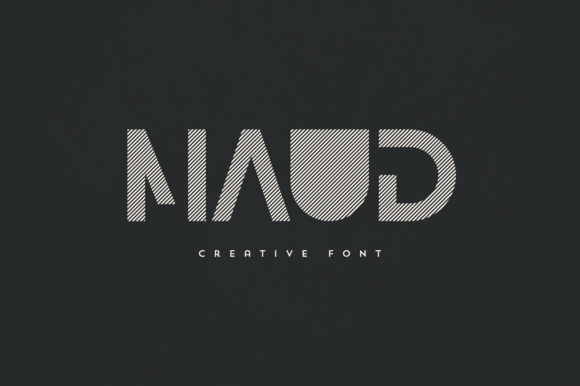
Maud: A Timeless Font for Modern Design
In a world where visual identity plays a crucial role in communication, the right typography can make all the difference. Maud is an elegant and versatile display font that brings a touch of sophistication to any design project. Whether you're crafting a logo, designing a brand, or adding a headline to a magazine, Maud offers a unique aesthetic that stands out without overwhelming the viewer.
As digital and print media continue to evolve, the demand for distinctive fonts has grown. Maud meets this need by combining classic elegance with modern adaptability. Its clean lines and refined structure make it suitable for a wide range of applications, from high-end branding to everyday text overlays.
The Rise of Display Fonts in Contemporary Design
Display fonts have become increasingly popular in recent years, especially in branding and marketing. Unlike standard typefaces, display fonts are designed to grab attention and convey personality. Maud fits perfectly into this category, offering a balance between readability and visual appeal.
With the rise of social media and digital content creation, designers are constantly seeking fonts that can translate well across different platforms. Maud’s versatility ensures it looks great on both screens and printed materials, making it a valuable asset for creators who work in multiple formats.
Why Maud Stands Out
Maud is more than just a pretty font—it's a tool that enhances the overall impact of a design. Its subtle variations in weight and spacing allow for creative flexibility, enabling users to experiment with layout and composition. This makes it ideal for projects that require a personal touch or a unique visual signature.
For businesses, Maud can help establish a strong brand presence. In a competitive market, standing out visually is essential. By using Maud in logos, packaging, or promotional materials, companies can create a cohesive and memorable identity that resonates with their audience.
Applications Across Industries
The practical uses of Maud extend beyond traditional design fields. In home décor, for example, it can be used to add a stylish element to wall art, signage, or custom furniture. For product packaging, Maud’s clarity and refinement make it perfect for labels, tags, and branding elements that need to communicate quality and care.
Magazine headers and editorial layouts also benefit from Maud’s ability to command attention while maintaining legibility. In a fast-paced reading environment, a well-chosen font can guide the reader’s eye and enhance the overall experience.
Integrating Maud into Your Workflow
For those new to typography, Maud provides a great opportunity to explore how different fonts affect the tone and message of a design. Experimenting with Maud can help users develop a better understanding of typographic hierarchy and visual storytelling.
Trends Shaping the Future of Typography
The design industry is always evolving, and typography is no exception. Current trends emphasize minimalism, clarity, and emotional resonance. Maud aligns with these principles by offering a clean, sophisticated look that feels both modern and timeless.
As more people turn to digital tools for creative expression, the need for accessible and high-quality fonts like Maud is growing. Whether you’re a professional designer or a hobbyist, having a reliable font that works across different contexts is essential.
Recommendations for Users
If you're looking to elevate your design work, consider experimenting with Maud in various projects. Start with small applications, such as adding it to a website header or a social media graphic, before moving on to larger branding efforts. This approach allows you to test its effectiveness and see how it complements your existing style.
For businesses, Maud can be a powerful addition to a brand’s visual identity. It’s especially useful for companies that want to communicate professionalism and creativity simultaneously. Pairing Maud with complementary colors and layouts can further enhance its impact.
Conclusion: Embrace the Elegance of Maud
In a design landscape that values uniqueness and quality, Maud offers a compelling solution for those looking to make a lasting impression. Its blend of elegance and versatility makes it a valuable resource for professionals and creatives alike. As trends continue to shift, Maud remains a reliable choice for anyone who wants to add a touch of sophistication to their work.